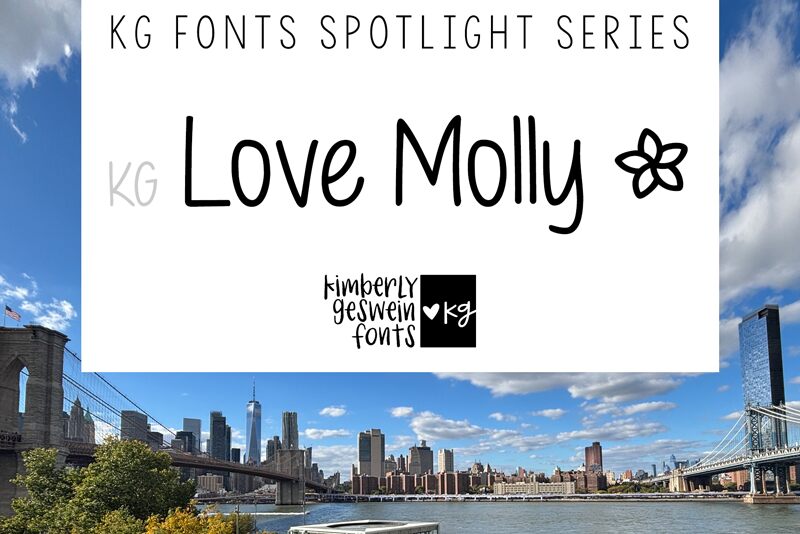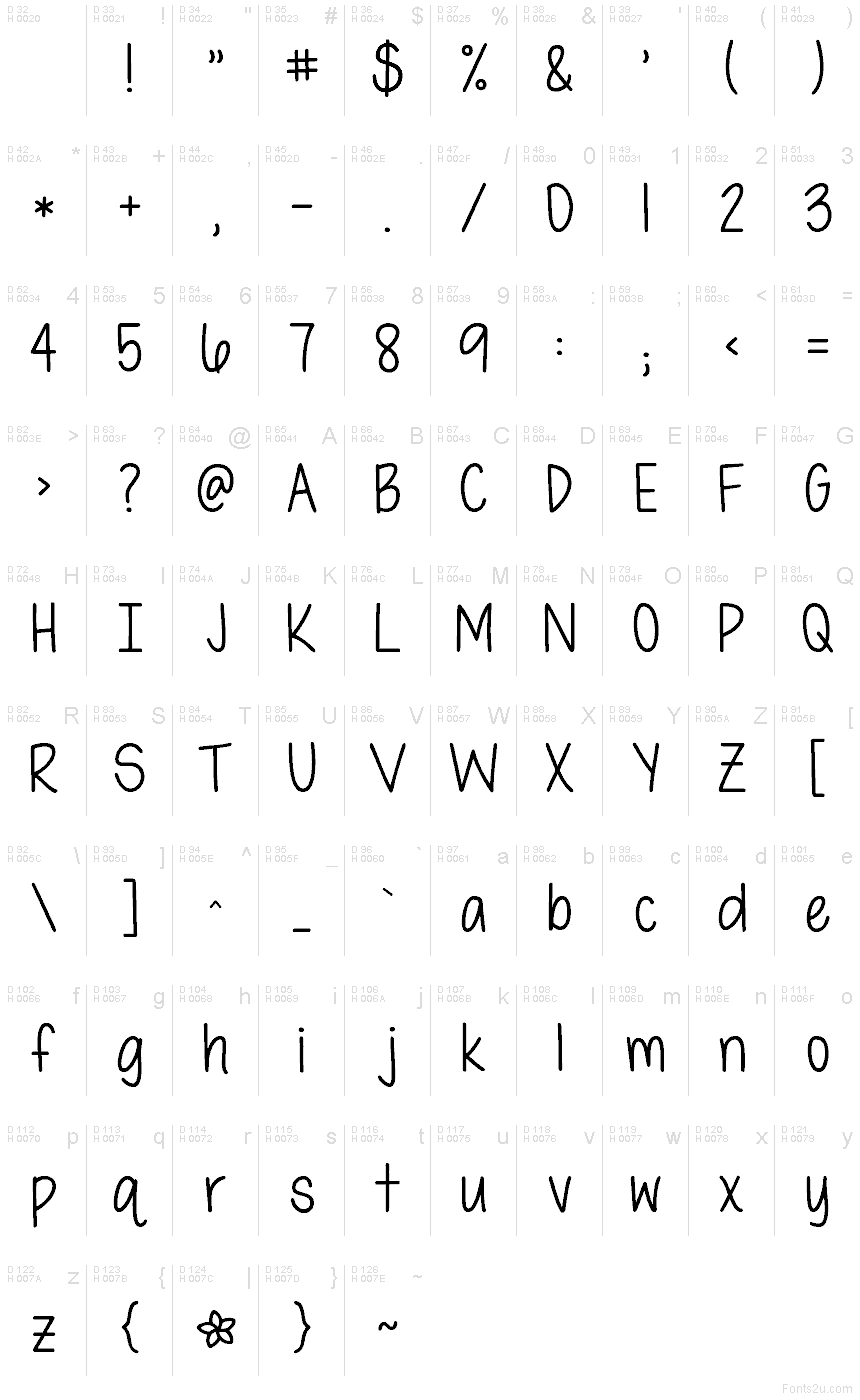
KG Love Molly
KG Love Molly font by Kimberly Geswein is a free handwritten typeface. Rounded monoline strokes, open counters, and easy rhythm give it a friendly, steady voice that stays readable from caption size to big headings. Slightly bouncy forms feel personal without getting messy, solving the common struggle of finding handwriting that’s both warm and clear.
Using KG Love Molly, you can write classroom worksheets, kids’ packaging, planner pages, quote graphics, greeting cards, stickers, and social posts with a consistent, airy tone. This free font’s generous spacing and upright flow keep lines tidy, so longer text blocks don’t turn into a wobble. Pair with a simple geometric sans in small caps for contrast, and let KG Love Molly handle the headlines and notes at 110–120% line spacing.